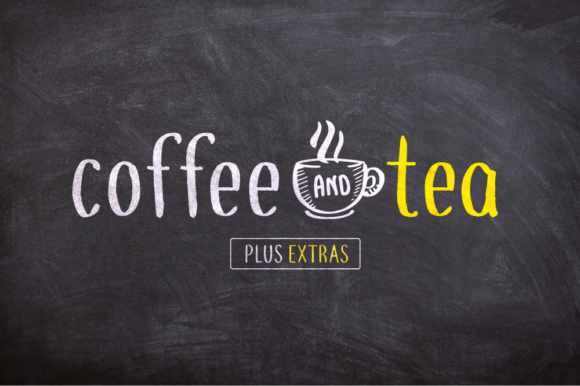
Journey into the realm of creativity and elegance with Coffee and Tea Font, a script font family that will awaken your senses and captivate your imagination. Experience the warmth of a cozy café and the serenity of a tranquil tea garden, all within the strokes of this enchanting font.
Coffee and Tea Font is not just a collection of letters; it's an expression of art, an ode to the simple pleasures of life. Its clean, thin, and smooth lines evoke a sense of effortless sophistication, making it the perfect choice for any design project that seeks to convey a touch of grace and charm.
Indulge in the versatility of Coffee and Tea Font, a font that seamlessly adapts to your creative vision. Whether you're crafting a captivating DVD menu, designing a heartfelt greeting card, or creating a stylish social media post, Coffee and Tea Font will elevate your words and make them sing.
Step into a world where your designs come alive with the allure of Coffee and Tea Font. Let your imagination soar as you explore its endless possibilities, transforming your creative dreams into tangible realities. With this font by your side, you'll discover a newfound joy in the art of expression.
Unleash the power of Coffee and Tea Font today and embark on a journey of creativity that will leave you inspired and fulfilled. Immerse yourself in the beauty of simplicity and let your designs bloom with elegance.